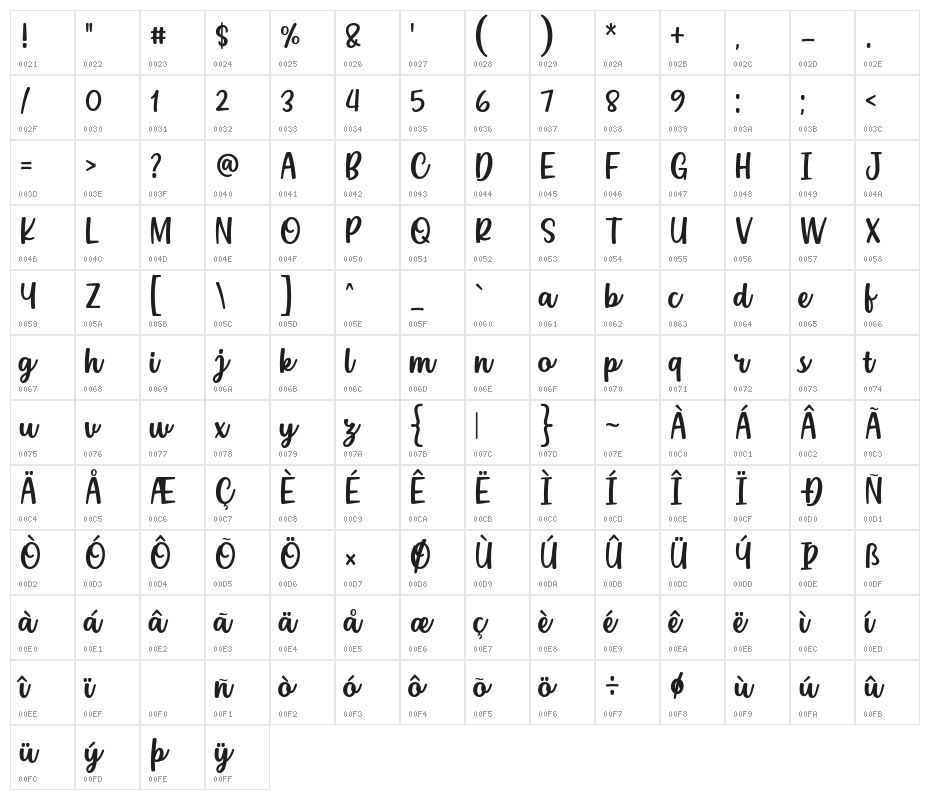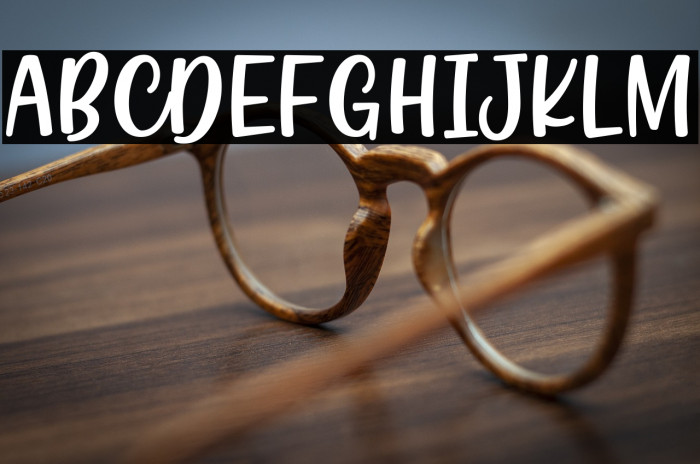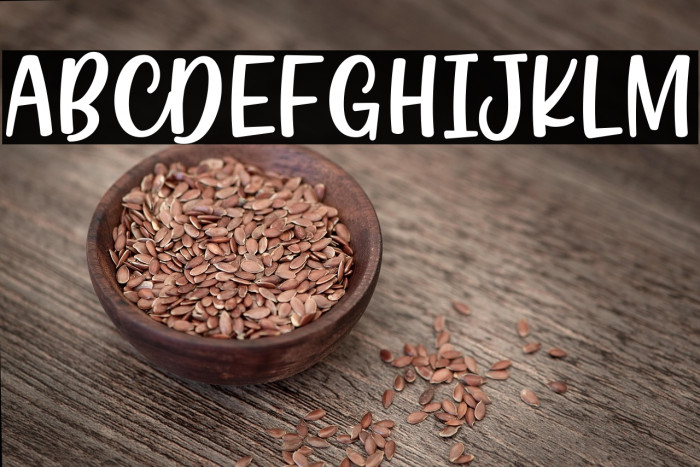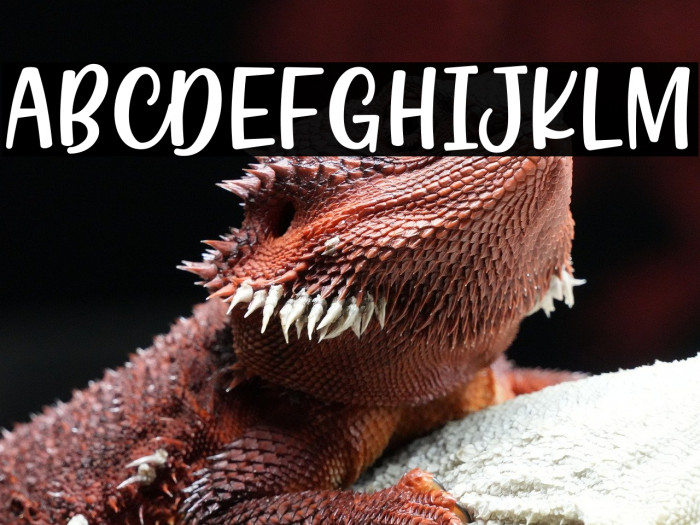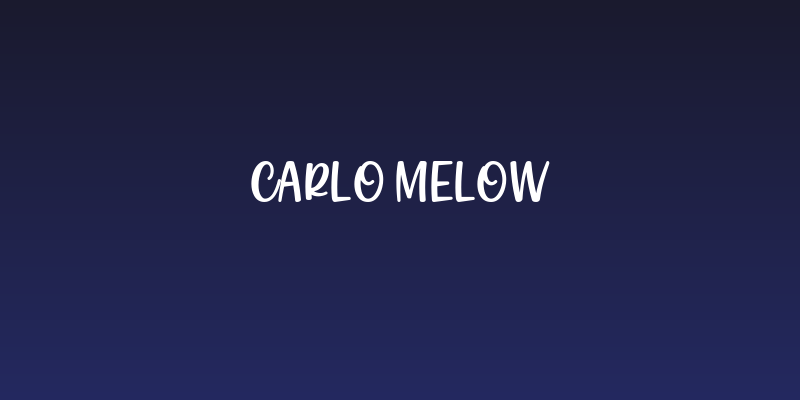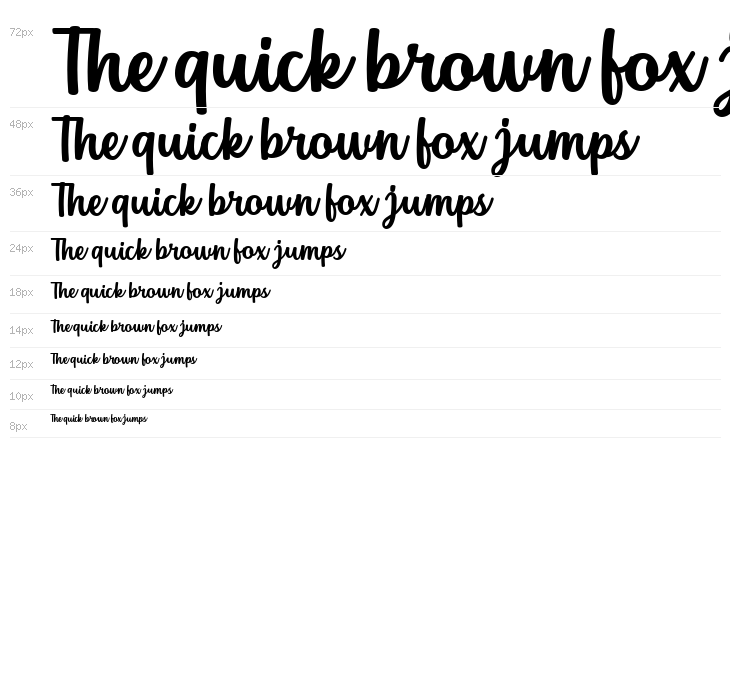
Carlo Melow Font
Carlo Melow Description
This font features a playful and energetic script style, characterized by its bold and flowing letterforms. The uppercase letters are tall and slightly slanted, giving a sense of movement and dynamism. The lowercase letters are rounded and connected, enhancing the casual and friendly appearance. The numerals are consistent with the overall style, maintaining the same boldness and fluidity. Special characters are well-integrated, ensuring versatility in various design contexts. The font's overall look is modern and approachable, making it suitable for a wide range of creative projects.